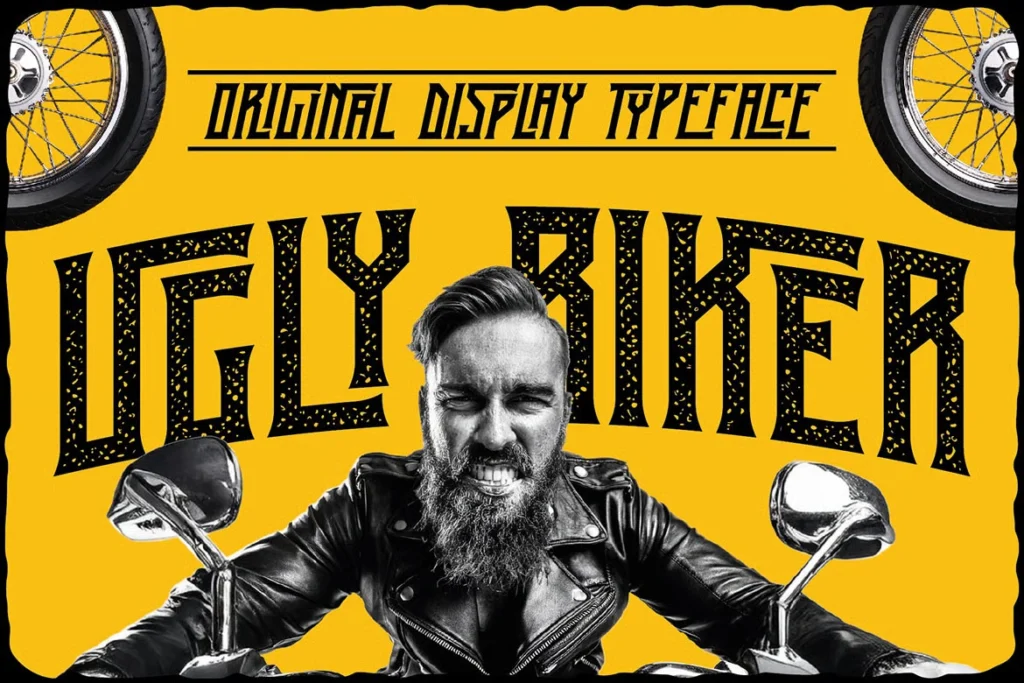
Ugly Biker – Condensed Retro Font
Ugly Biker – Condensed Retro Font. Unique, classic, condensed, sharp, compact, retro, vintage & label semi serif font. Comes with multilingual support & 306 ligatures + 4 font versions – great for your new logo, monogram or branding project.
4 font versions – regular, italic, textured & textured italic
Multilingual support & 306 ligatures
Great for your new logo, monogram or branding project